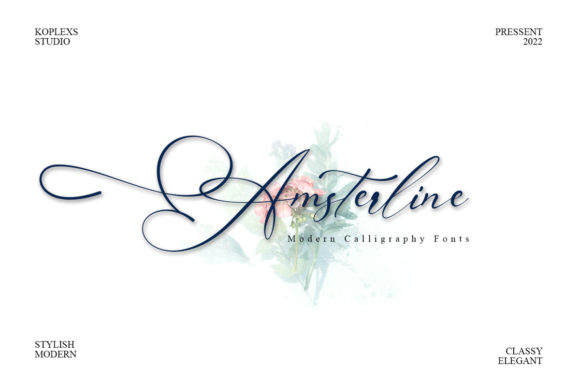
The Amsterline Font: A Designer’s Delight
I’ll never forget the time I was working on a project for a client who wanted a sophisticated, elegant look. I had spent hours browsing through font libraries, but nothing seemed quite right. That was when I stumbled upon the Amsterline font. Its slim and delicate script immediately caught my eye, and I knew I had found the perfect fit. In this article, I’ll share my experience with Amsterline, its features, and how to make the most of this beautiful font.
- ✨ Slim and delicate script: Amsterline’s elegant design makes it perfect for a variety of applications, from book texts to posters and advertisements.
- ✅ PUA encoded: The font’s PUA encoding means you can easily access all the glyphs and swashes, giving you plenty of creative freedom.
- 💻 Versatile: Amsterline is suitable for a wide range of projects, including business reports, magazines, newspapers, and corporate design.
While Amsterline is an excellent font, there are a few things to keep in mind:
- 🤔 Legibility at small sizes: As with many script fonts, Amsterline can be a bit tricky to read at very small sizes. Make sure to test it in your specific use case.
- ⚠️ Overuse of swashes: While the swashes are beautiful, overusing them can make the text look cluttered. Balance is key.
Amsterline was designed with the goal of creating a font that would evoke the elegance and sophistication of Amsterdam’s canals and architecture. The font’s creator drew inspiration from the city’s rich history and cultural heritage, resulting in a unique and captivating design.
Q: Is Amsterline suitable for body text?
A: While Amsterline is beautiful, it’s primarily designed for display text. For body text, you may want to choose a font with better legibility at smaller sizes.